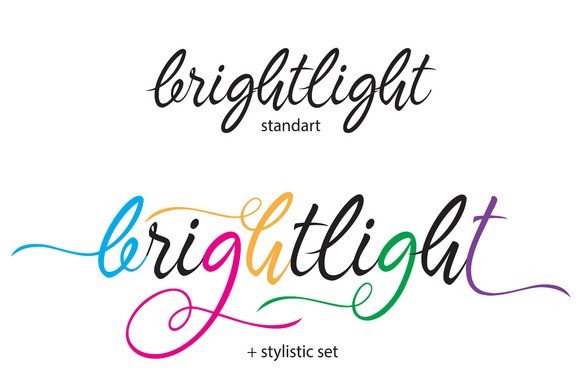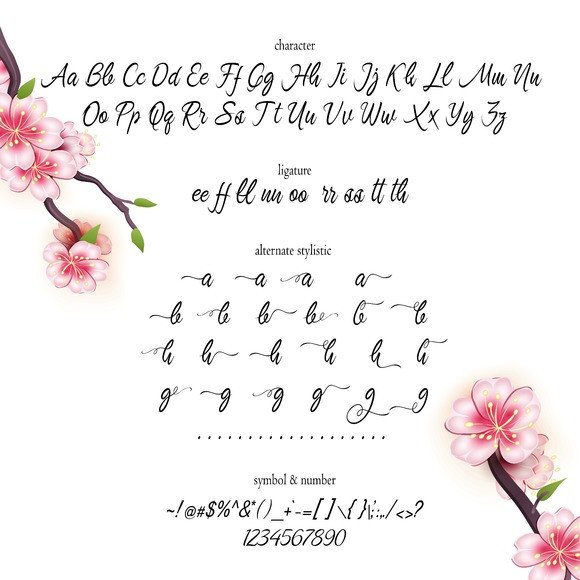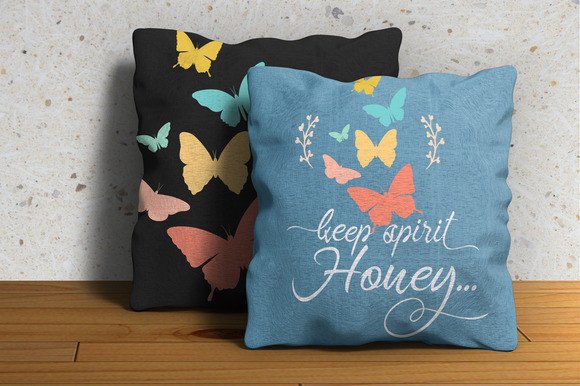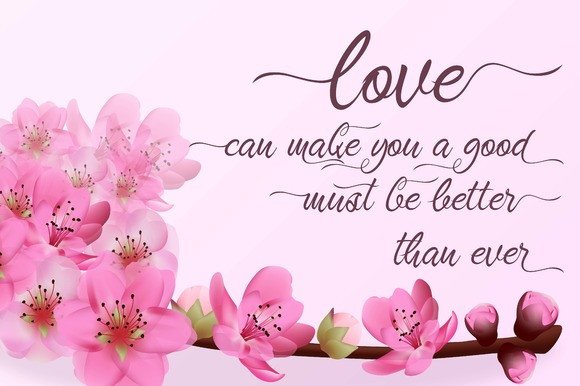
Introducing Brightlight Font: Elevate Your Designs with Elegance
Are you a designer or crafter looking for a font that exudes elegance and sophistication? Look no further than Brightlight Font, a beautiful handwritten font with clear smooth lines that is perfect for adding a formal touch to your designs. In this article, we’ll dive into the features and benefits of Brightlight Font, and explore how you can use it to take your designs to the next level.
What is Brightlight Font?
Brightlight Font is a stunning handwritten font that boasts clear, smooth lines and a elegant feel. Its unique charm makes it an ideal choice for designers and crafters who want to add a touch of sophistication to their work. Whether you’re creating wedding invites, thank you notes, or other decorations, Brightlight Font is the perfect choice.
Key Features of Brightlight Font
- Handwritten with love: Brightlight Font is a carefully crafted handwritten font that is designed to evoke a sense of warmth and personality.
- Clear smooth lines: The font features smooth, flowing lines that give it a elegant and refined feel.
- Elegant and sophisticated: Brightlight Font is perfect for designs that require a formal touch, such as wedding invites, thank you notes, and other decorations.
- Versatile: This font can be used for a wide range of design projects, from digital designs to print materials.
Perfect for Wedding and Formal Designs
Brightlight Font is particularly well-suited for wedding and formal designs. Its elegant feel and smooth lines make it perfect for:
- Wedding Invites: Create beautiful and elegant wedding invites that set the tone for your special day.
- Thank You Notes: Express your gratitude with stylish and sophisticated thank you notes.
- Formal Decorations: Add a touch of elegance to your formal decorations, such as party banners, garlands, and more.
Why Choose Brightlight Font?
So why choose Brightlight Font over other fonts? Here are just a few reasons:
- Unique and distinctive: Brightlight Font has a unique and distinctive feel that will set your designs apart from the crowd.
- Elegant and sophisticated: This font exudes elegance and sophistication, making it perfect for formal designs.
- Easy to read: Despite its elegant feel, Brightlight Font is easy to read and understand, making it perfect for designs that require a clear message.
How to Use Brightlight Font
Using Brightlight Font is easy! Here are a few tips to get you started:
- Pair it with other fonts: Brightlight Font pairs well with other fonts, such as sans-serif fonts, to create a unique and interesting design.
- Experiment with colors: Try out different colors and color combinations to find the perfect look for your design.
- Play with sizes: Experiment with different font sizes to create visual interest and hierarchy in your design.
In conclusion, Brightlight Font is a beautiful and elegant handwritten font that is perfect for designers and crafters who want to add a formal touch to their designs. With its clear smooth lines, elegant feel, and versatility, Brightlight Font is the perfect choice for wedding invites, thank you notes, and other decorations. So why wait? Download Brightlight Font today and start creating stunning designs that exude elegance and sophistication!